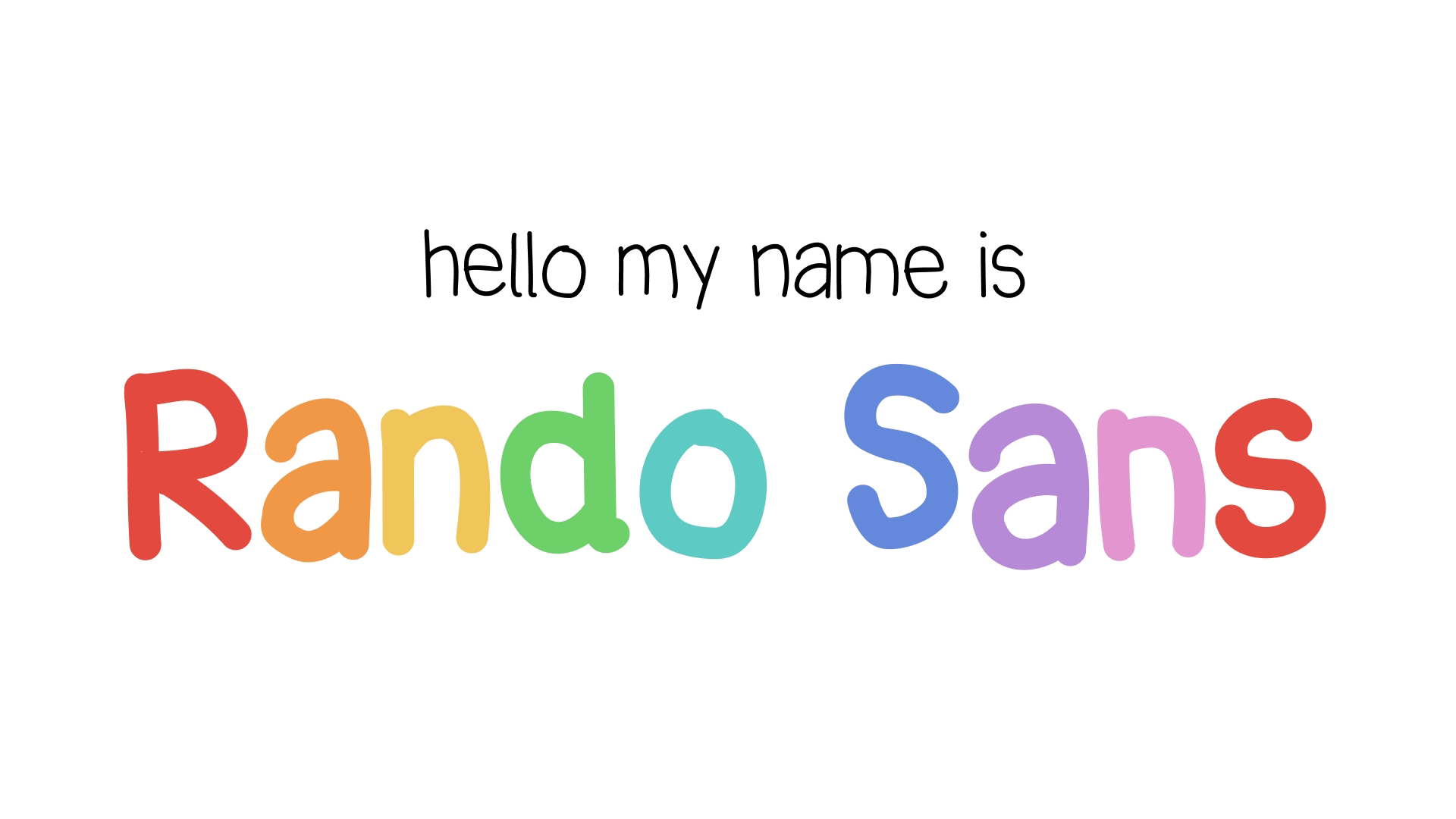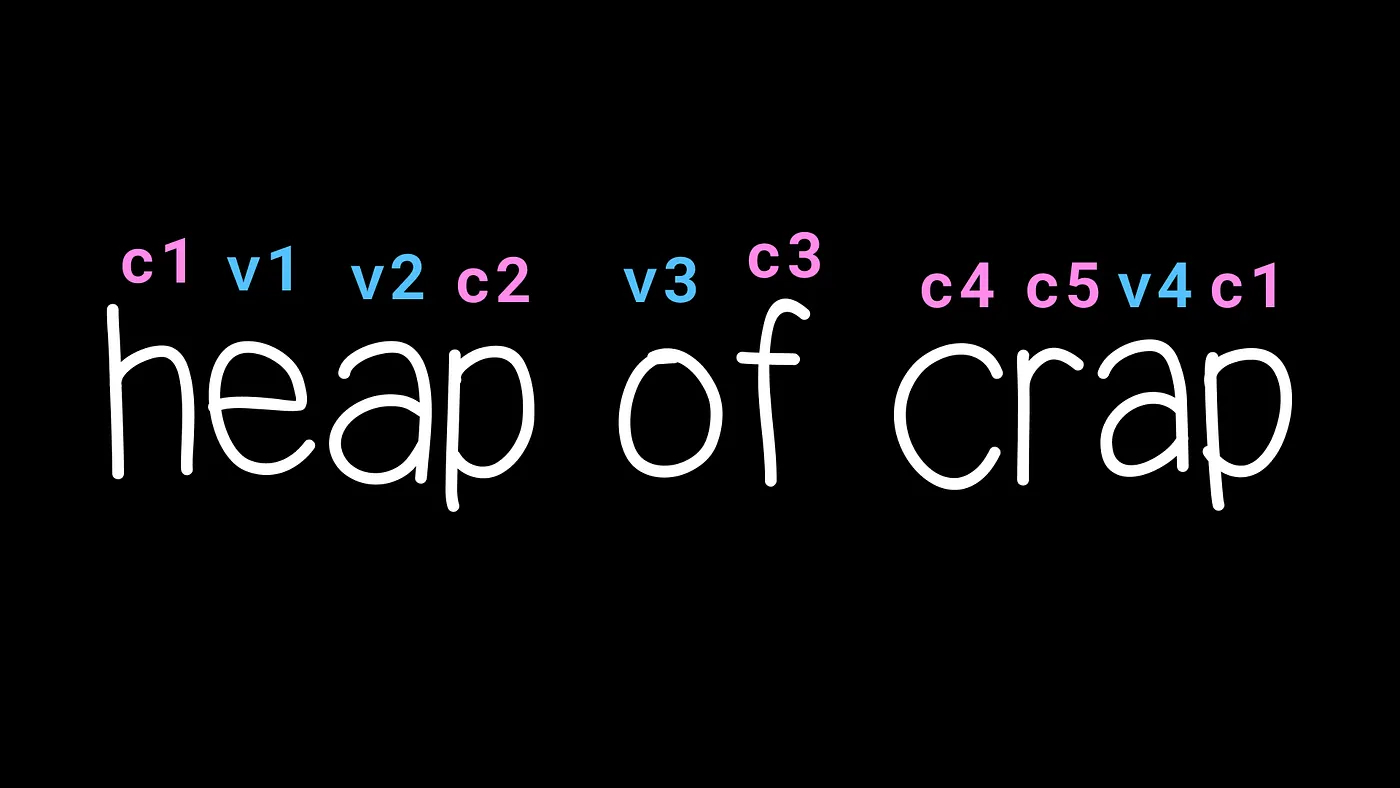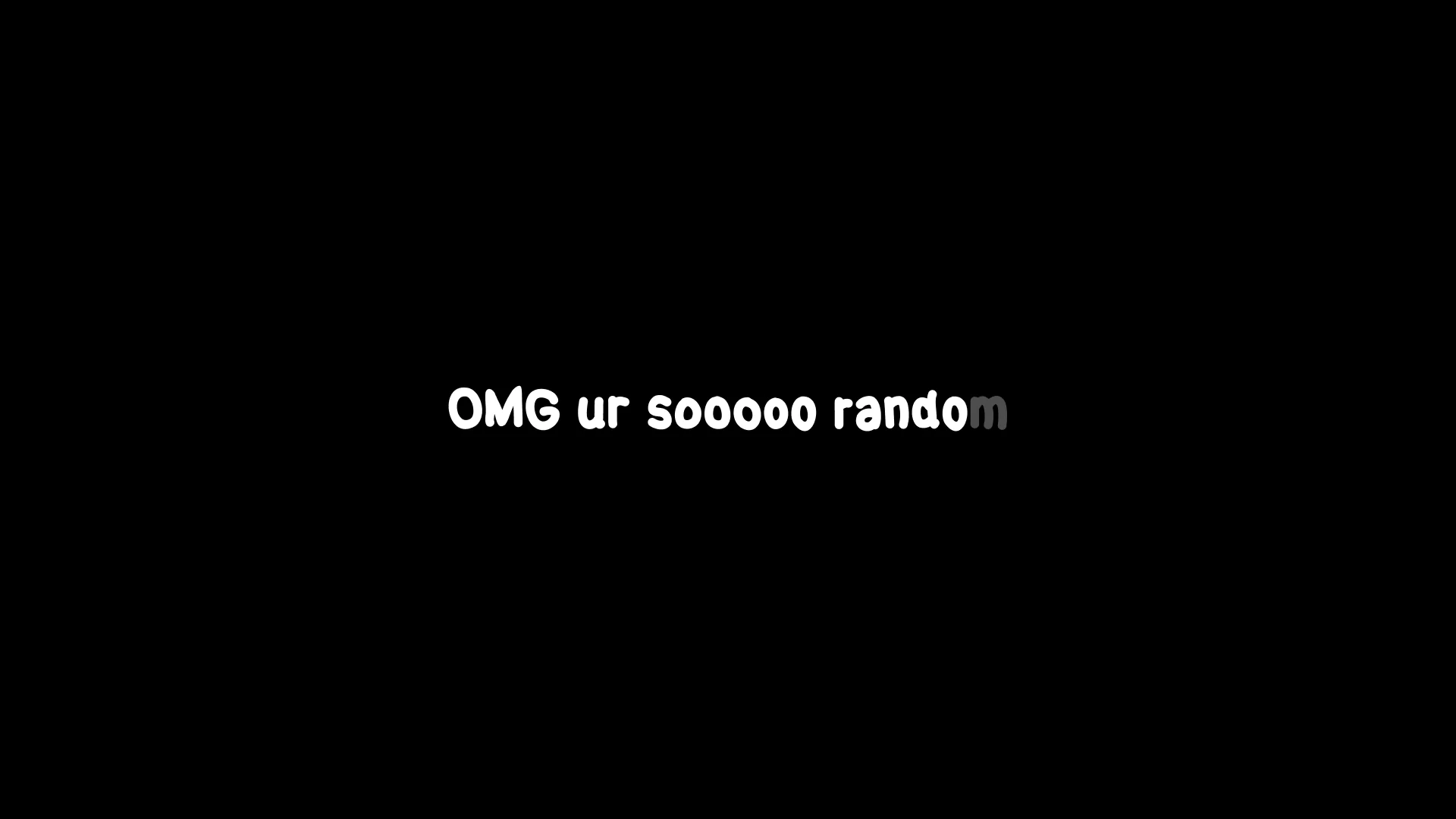
Wild new handwriting font is 'Comic Sans on steroids'
Rando Sans solves the biggest problem with handwriting fonts.
While the best handwriting fonts all manage to perfect that authentically imperfect handmade look, there's one problem that plagues every 'analogue' typeface. The illusion is shattered by repeating identical letters. But one typographer has found an ingenious solution to the problem.
Rando Sans is a new dynamic typeface that displays different versions of letters as you type. Created by designer Beau Maher, the typeface "uses the Contextual Alternatives function and some code to cycle variations of each letter to create a pseudorandom effect." In other words, without identical letters sitting next to each other, the font looks much more authentically handwritten.
"Surely there’s a way to have a font that has a bunch of variations that are all jumbled up so that you can bullshit people even more," Maher describes as the initial question that led to the project. "This kernel of a thought sat in the back of mind for a long time. Rando Sans is the expression of that thought."
In a blog post explaining the process, Maher goes into great detail explaining how the 'pseudorandom effect' was achieved. Before designing the actual characters using Figma (Apple Pencil and iPad "kinda sucked" for creating the handwritten look), Maher needed to validate that the effect was possible from a technical perspective. This involved experimenting with OpenType's RAND and Contextual Alternatives (CALT) functions, the latter of which ended up powering the typeface.
In short, there's a complex process behind the goofy looking font. And judging by the response on Reddit, the work was worth it. "Love the weights & the overall approach. Good job!" one user comments, while another adds, "I love this!! So many handwritten fonts suffer from identical letters that kill the illusion, but this font solves that problem wonderfully. Very well done!" A third user describes Rando Sans a "Comic Sans on steroids".